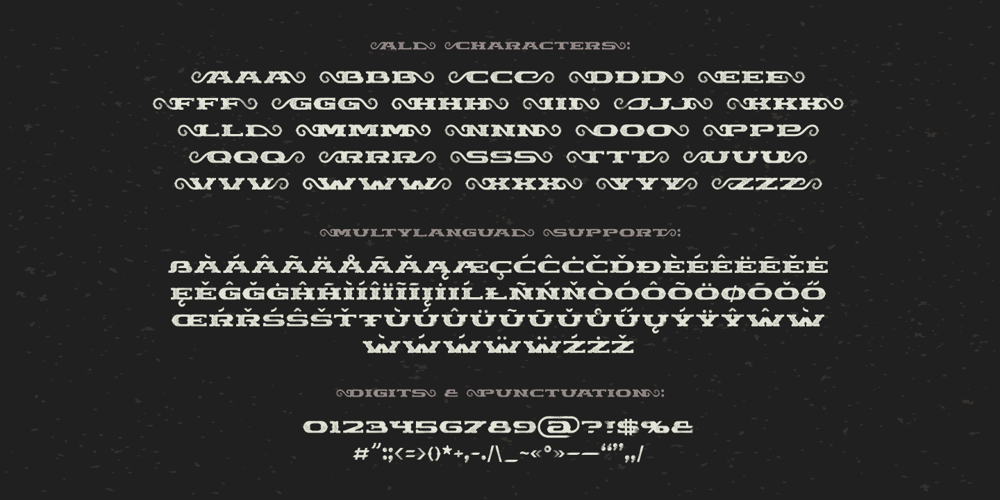
Chimera Tail Rough
Chimera Tail Rough font
Chimera Tail Rough Font Family was designed by Gleb Guralnyk and published by Gleb Guralnyk. Chimera Tail Rough contains 2 styles and family package options. Hello! Presenting a vintage dark font “Chimera Tail”. It’s a wide textured typeface with automatically replaceable initial and final extended characters. Also a clean version without texture is included.